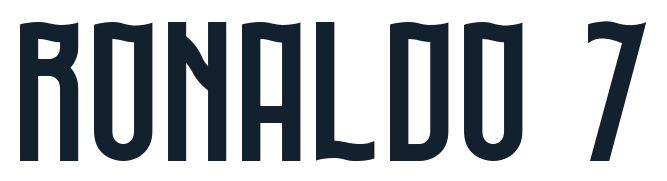
Portugal 2026 World Cup Font Kit - Wave-Inspired Puma Typography
The Portugal 2026 World Cup Font Kit features the thinner, elegant typeface with subtle wavy shapes that match Puma's official kit design. This fluid style with white letters and green outlines perfectly complements the red home shirt's ocean-inspired wave pattern. Ideal for fans, designers and creators celebrating Ronaldo, Fernandes and Portugal's maritime football heritage.
Complete A–Z uppercase letters and numbers 0–9
Accented characters for Portuguese names (e.g., Á, É, Í, Ó, Ú, Ç)
Wavy, elegant style with green outline details matching the Puma home kit
Use for custom Ronaldo 7 jerseys, namesets, match graphics, posters, social media, banners and fan merchandise. The preview shows the white-on-red numbers with Portugal crest accents for authentic tournament visuals.
Designed for Portugal projects: Perfect for World Cup kits, Ronaldo graphics and Seleção fan designs
Official-inspired wavy style: Matches Puma's thinner, fluid 2026 kit font with ocean theme
The elegant curves and outlines give your designs the modern, lightweight feel of Portugal's latest World Cup look.